Historical authority doesn’t have to feel outdated or overly heavy. Incorporating a blackletter gothic font into your design instantly infuses it with rich heritage, dramatic contrast, and an unmistakable edge. Whether you’re crafting modern apparel or striking album art, weโre here to master this timeless aesthetic effortlessly.
Choosing to use the blackletter style is the correct approach to highlight a heritage value. This is the Old English or Gothic script style, which largely represents medieval European handwriting.
Today, contemporary blackletter fonts are developed to fit modern design directions, applying crispier edges, cleaner visuals, or even more ornate flairs. We suggest pairing blackletter fonts with sans serifs for balance, letting the stylized blackletter carry the visual weight while the sans serif keeps things neat.
We have compiled the most admirable blackletter fonts for apparel, posters, or music albums. Here are 14 blackletter fonts for your next project.
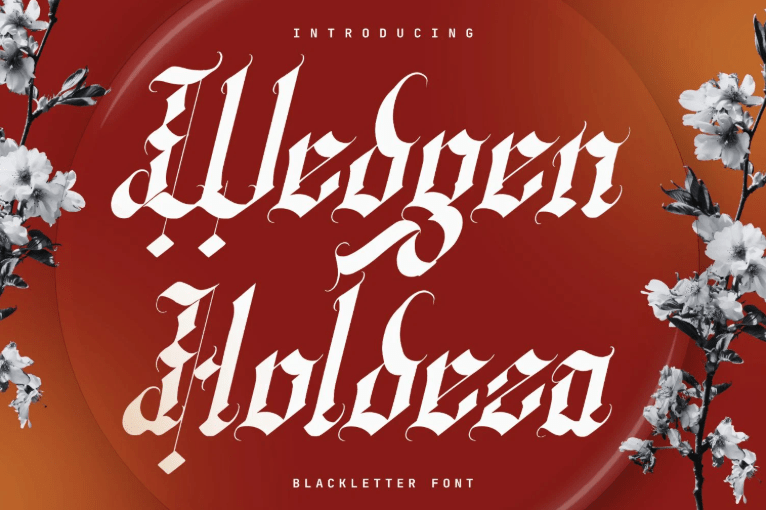
Wedgen Holdeza is an elegant blackletter font that focuses on precision and a delicate touch. This font maintains its readability while taking in gothic elements and flairs. If youโre searching for highly detailed letters that boast accuracy, this is the one for you.
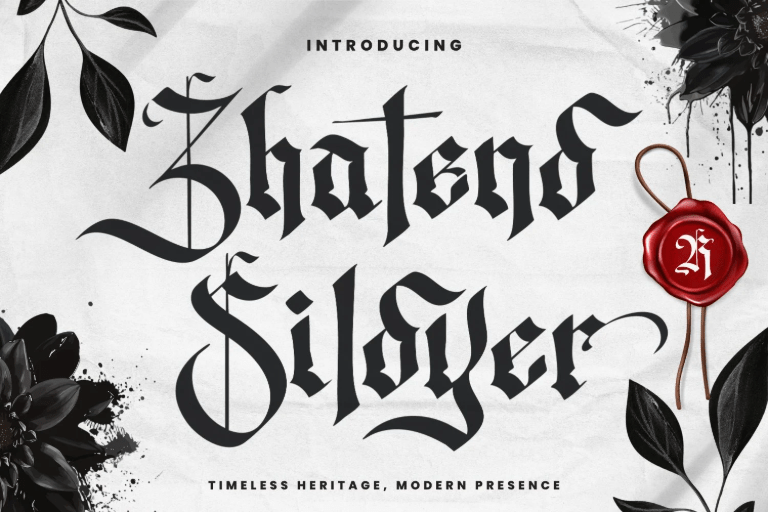
Zhatend Sildyer represents the classic blackletter tattoo font. This font has a dynamic vertical alignment, effortlessly creating a unique design. Its grim visuals are perfect for your memorable piece.
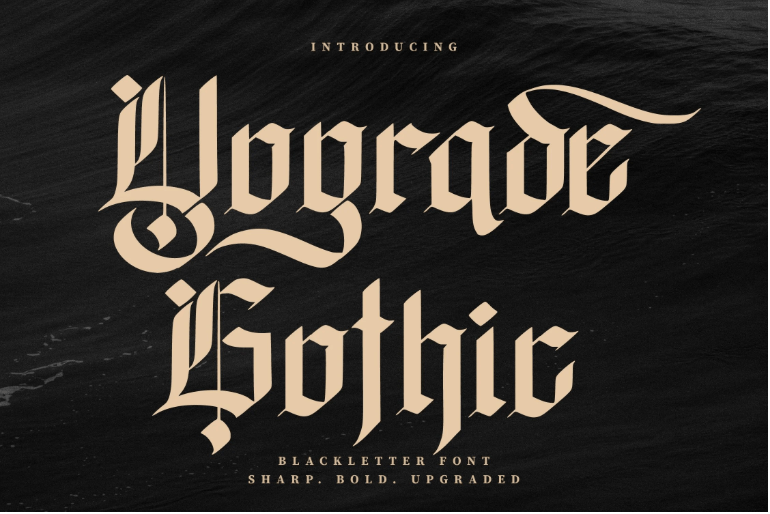
For the blackletter gothic font enthusiasts, Yograde Gothic must be on your list. This font combines the iconic gothic look and modern polish, perfect for a business with a strong and luxurious vision.
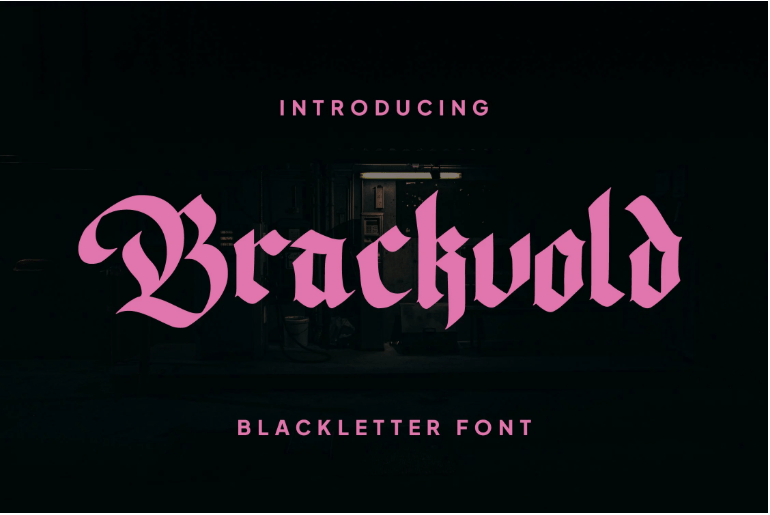
Brackvold is a more modern blackletter style. This font uses a minimalist take on the stylish blackletter. Its wide uppercase and enchanting lowercase letters make a perfect combination.
Hasfegia is perfect for calligraphy and fantasy designs. This font is textured with brush styles and more fluid strokes. With typography like this, you can spark a medieval feel right off the bat.
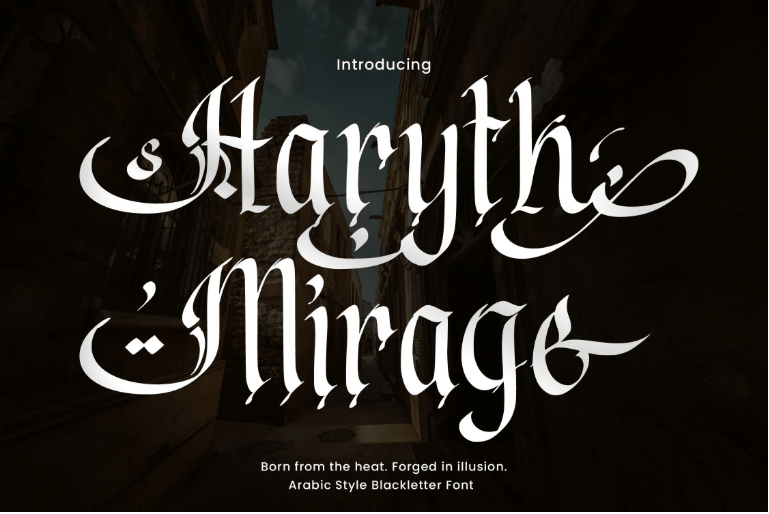
If you need more than a blackletter gothic font, why not one with Arabic influence? With this added theme, you can instantly weave a story behind the letters, combining the Middle Ages with the Middle East.
The Kosegry blackletter font is a typography that demands attention. This bold and sharp typeface guarantees a striking presence in every design, and is perfect for simplistic and romantic touches.
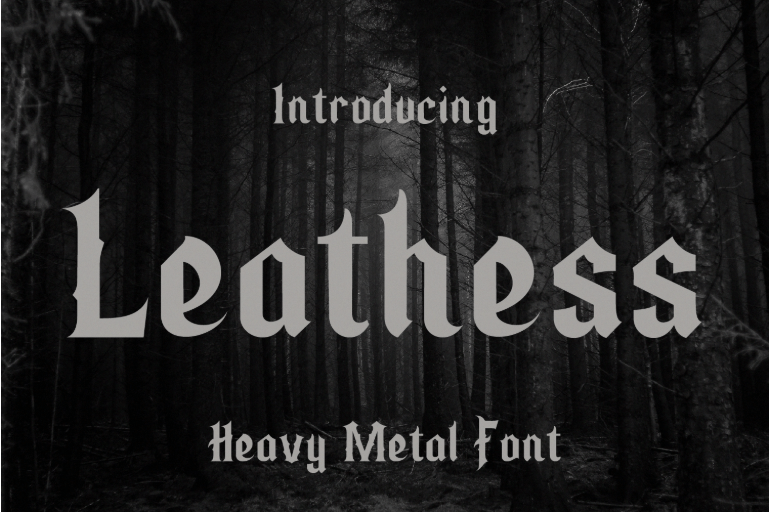
Using Leathess, your gothic designs can be bridged to the heavy metal aesthetics. It is the tool for a smooth transition or to widen your design reach. Unlike the floral blackletters, a heavy metal font like this features fire-like visuals.
Lyveros definitely has a demonic visual to it. This unusual blackletter opts for shorter strokes and a compact visual. Its thematic stake in the uppercase letters can easily ornate the minimalist lowercase letters when you use the ligatures.
Hagevra grabs attention with tall and condensed letters. This strategy works well when prioritizing the message while using simple photography. Combining the uppercase and lowercase letters brings you back to the medieval era, where mysteries are being made.
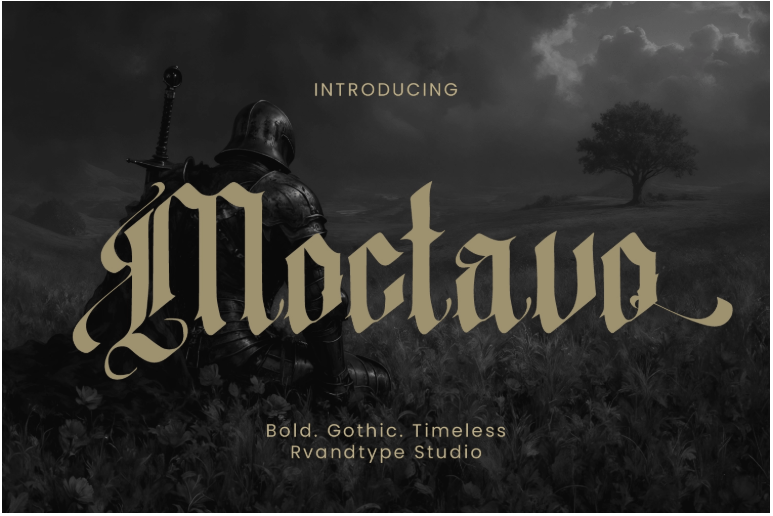
Moctavo is the most heritage-influenced blackletter typeface. The Old English style is still thick here, although precise, uniform flairs are present. Its ornate letterforms and strong presence bring you back to the lettering artistry in the traditional, medieval era.
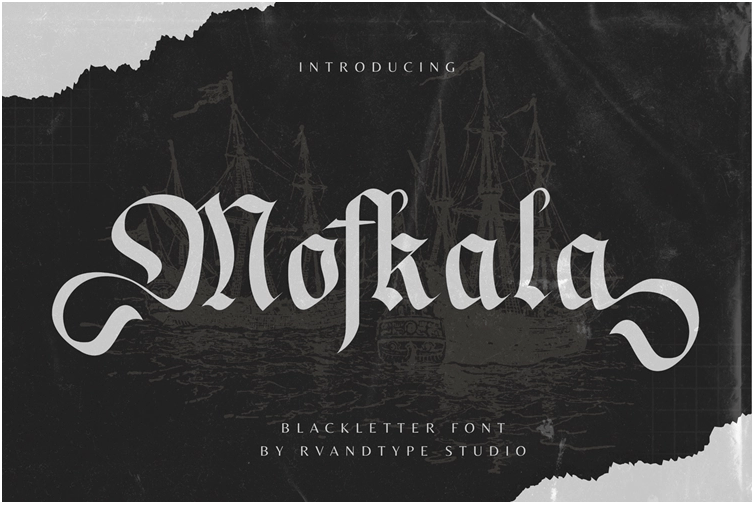
Mofkala imbued the blackletter style with pirate aesthetics. This font is perfect for capturing carefree designs and directions. Still displaying the delicate ornaments, this typeface adds swashbuckling, reckless vibes to it.
Westend Ridges cleverly mixes the Victorian font style with textured, western aesthetics. You can adjust the distress level of this elegant font, allowing for a sleek or rough design.
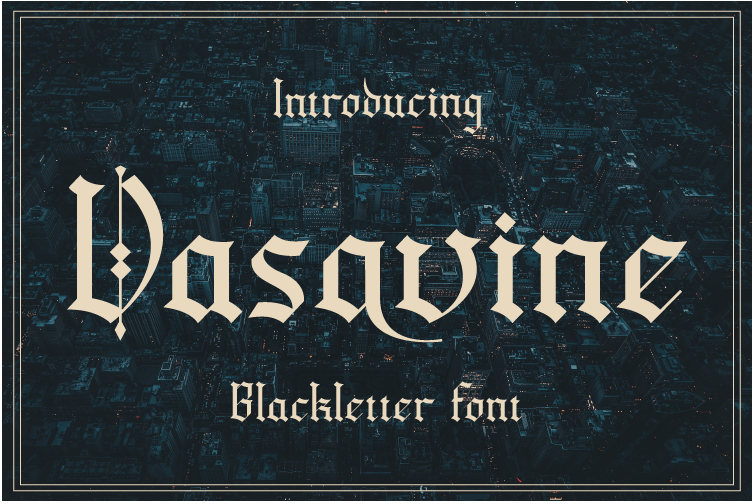
Lastly, Vasavine. This blackletter gothic font displays a bold, angular look with carefully made lines. This font also takes on Victorian elements, displaying a combination of quick stroke and curves. Take advantage of its alternate characters; that’s where the ornate letters are.
Blackletter typography remains one of the most powerful tools for bringing medieval charm and bold character to modern designs. Pairing these statement fonts with simple sans serifs ensures your visual message strikes the perfect balance between heritage and contemporary appeal.